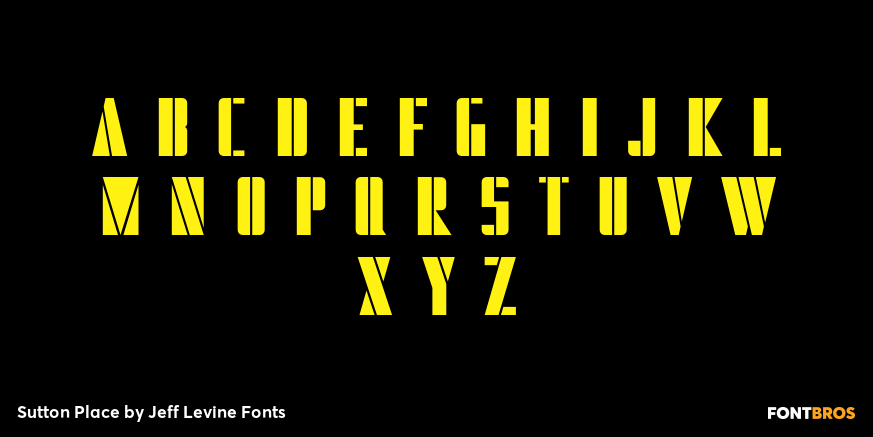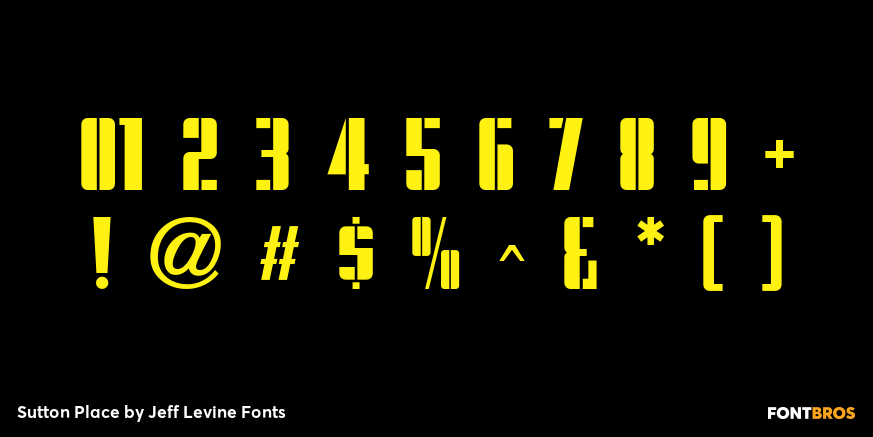
Sutton Place
Named for a Manhattan neighborhood, Sutton Place JNL is based on a 1930s-era poster advertising training in the 'Household Arts' that was produced by the Federal Art Project in Ohio; a segment of the larger Depression Era WPA (Works Progress Administration).